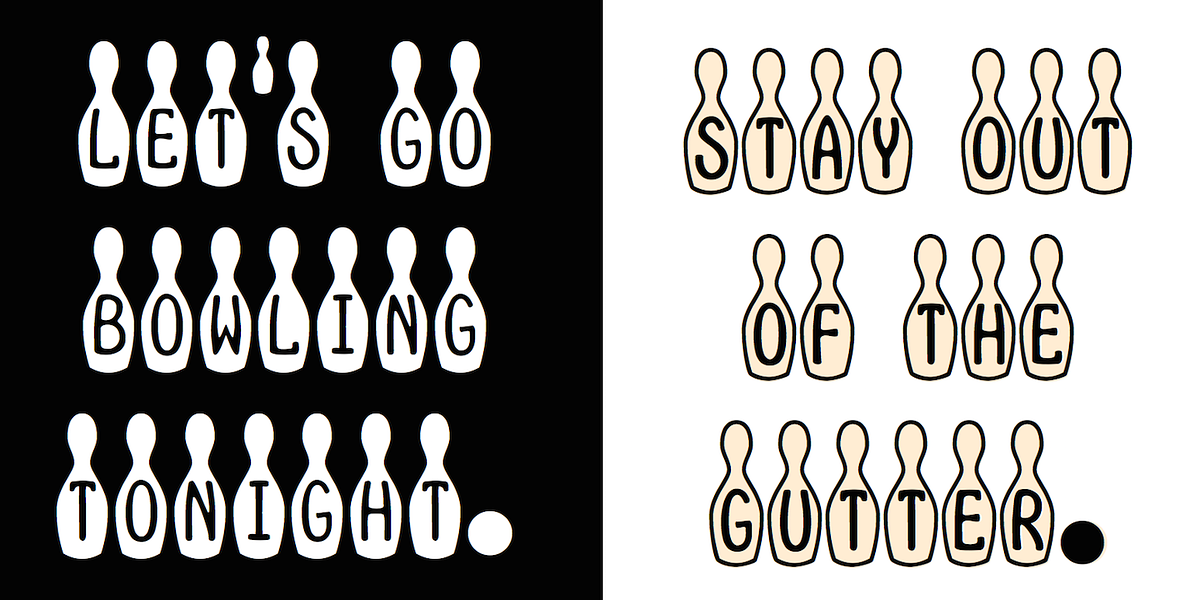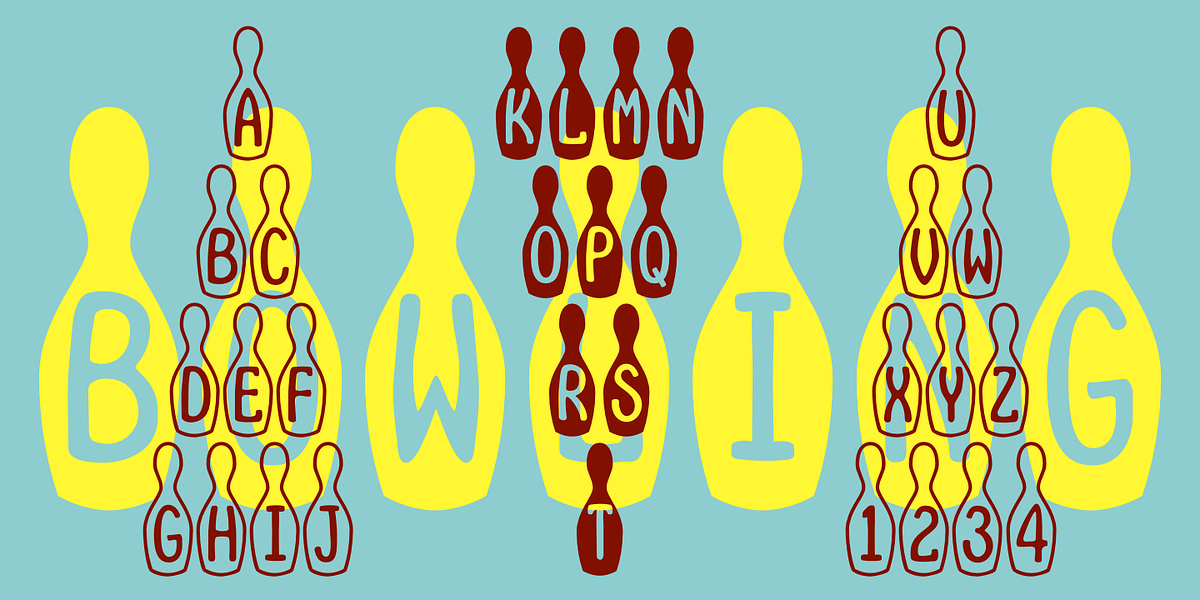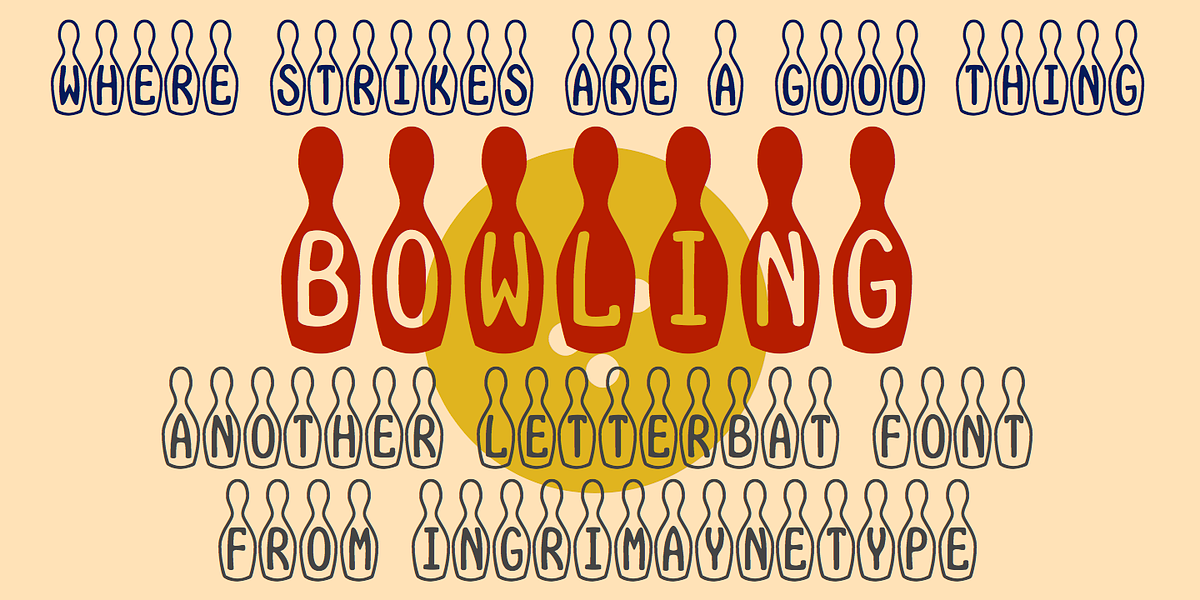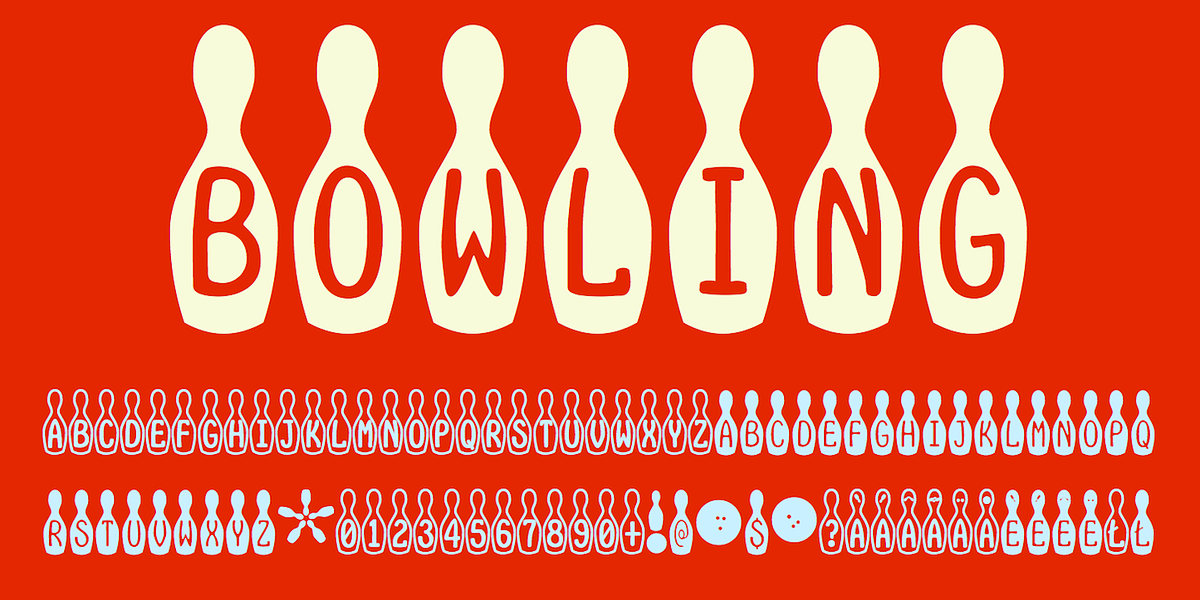
Bowling
This typeface utilizes bowling pins as dingbats to represent letters. Uppercase letters are depicted on white pins with black lettering, while lowercase letters appear on black pins with white lettering. A unique feature allows for the coloring of lowercase letters and their placement behind uppercase letters, creating two-color letterforms.